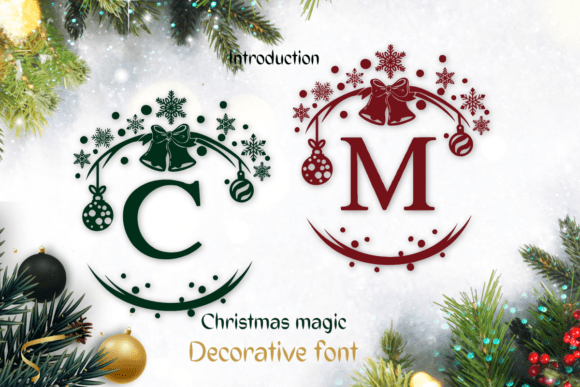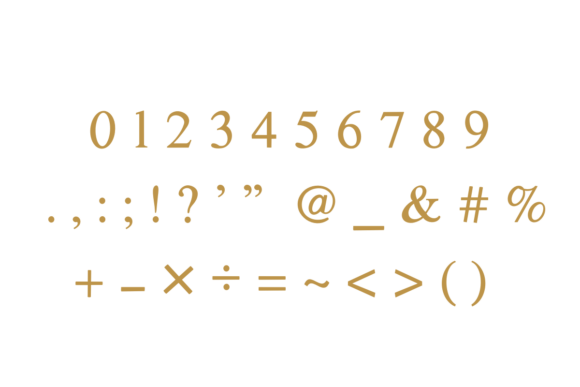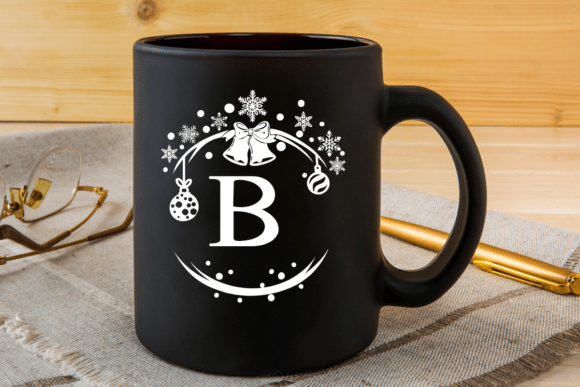
Christmas Magic Font
Christmas Magic is a festive decorative font You can use it for taking notes, writing a diary, or making greeting cards. However, you can still use it for other designs, such as banners, content, mugs, cards, shirts, stationery, social media posts, and more!